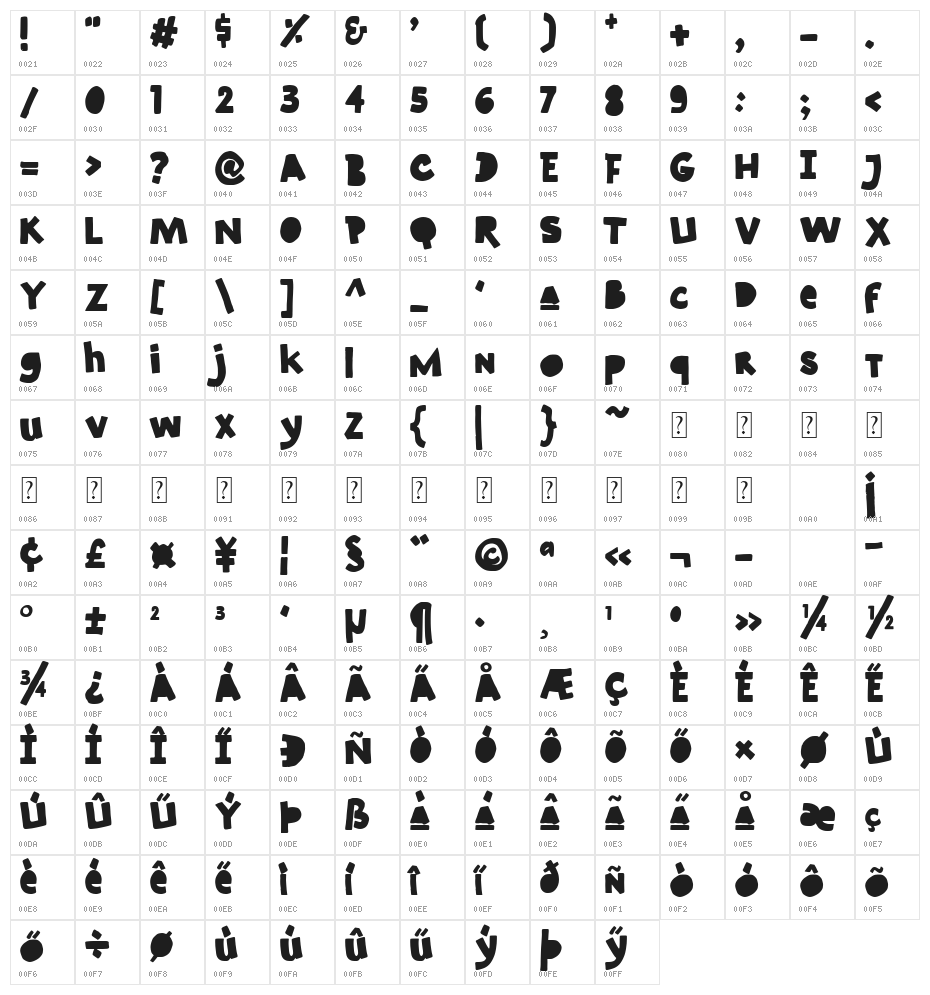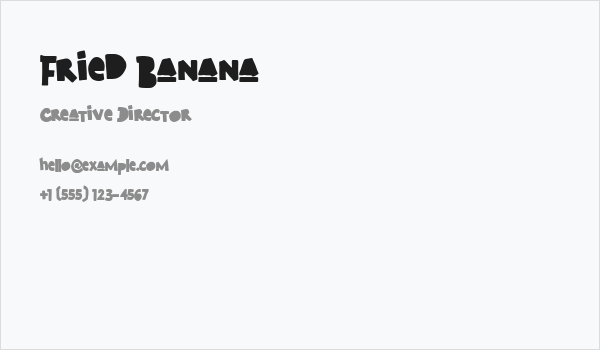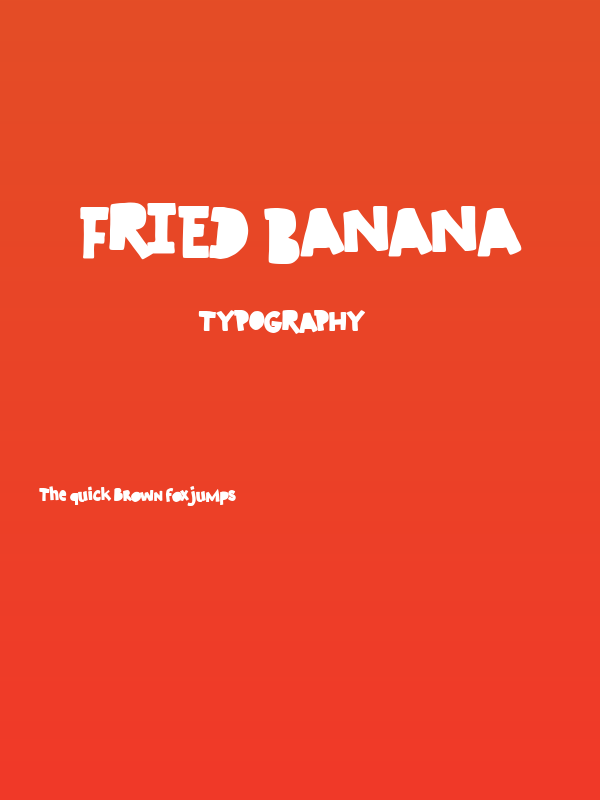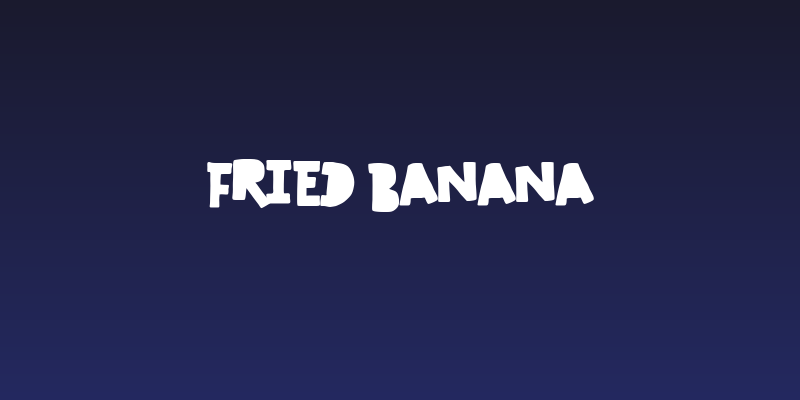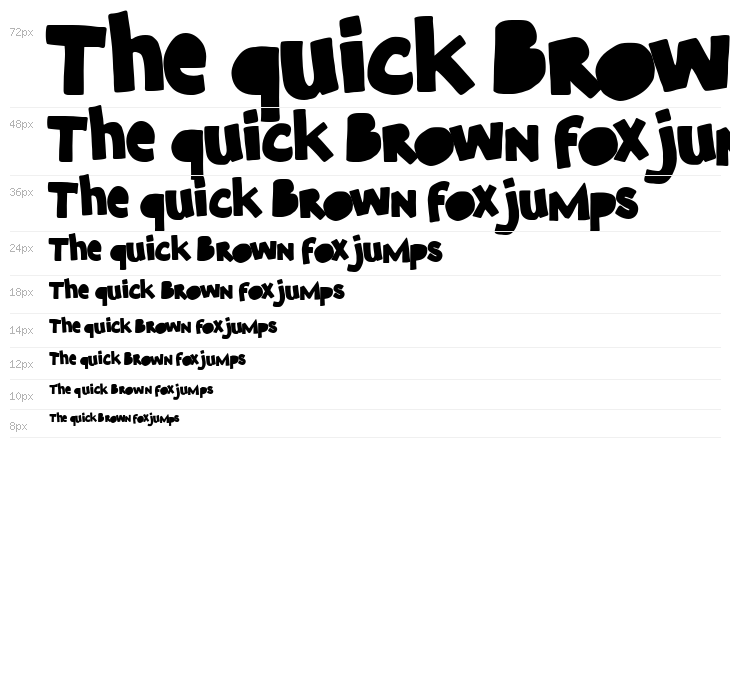
Fried Banana Font
Fried Banana Description
This playful and bold font features thick, irregular strokes that give it a whimsical and energetic appearance. The characters are chunky and have a hand-drawn feel, with uneven edges that add to its quirky charm. The uppercase and lowercase letters maintain a consistent style, while the numbers and special characters complement the overall design. This font's unique style makes it stand out, perfect for projects that require a fun and informal touch.
| Proposed Projects | Ideal for children's books, playful branding, event posters, and creative social media graphics. |